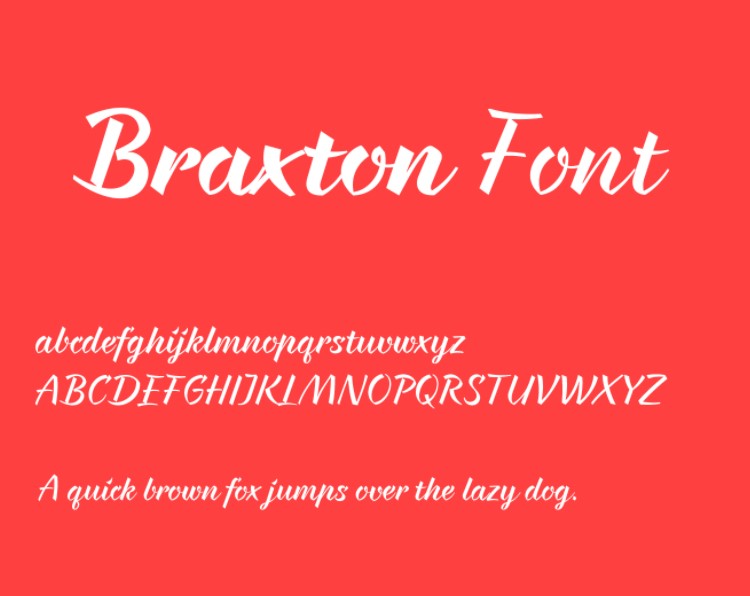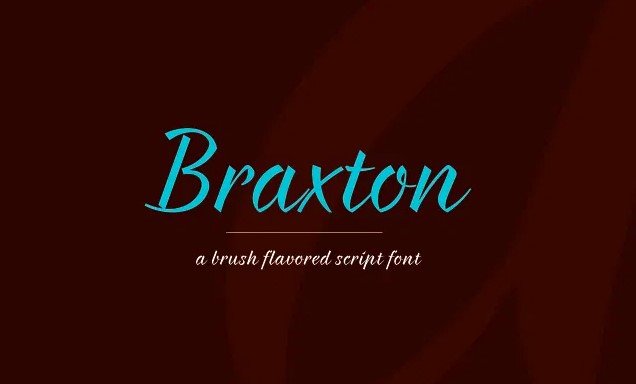
We are excited to present the marvelous brushed typeface font family, the Braxton Font. This typeface is crafted with sleek and refined brush curves. It includes a wealth of features and is available for free download and use in all types of design projects.
This typeface contains two different variations bold, regular and unique styles. It is available to work with all types of texts, paragraphs, and headings. It will look beautiful on large screens as well.
Braxton font is specially designed for making posters, banners, and printing purposes. Because of its handy designs, it is loved by many popular designers.
Here we provide an image that includes the characters and letters of this beautiful font which is perfect to work with smoothie shoppe script font, you can perceive it by viewing on the image and get an idea of how delightful it is.
This is the great and awesome scripted brushed typeface that is suitable and perfect to combine this font and use as pairing with the combination of amsterdam signature font to get awesome unique styles for free and makes all kinds of graphic designs beautiful.
| Name | Braxton Font |
| Designer | Evgeny Tkhorzhevsky & Vladivostok |